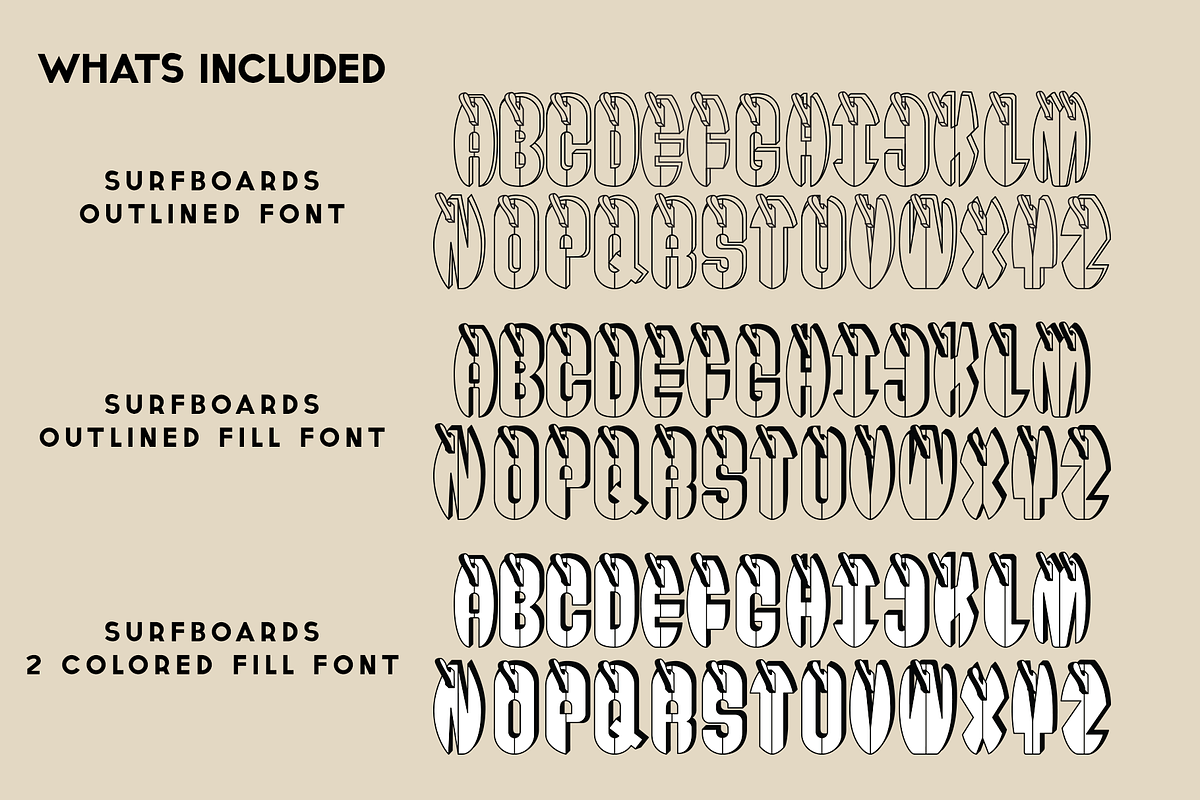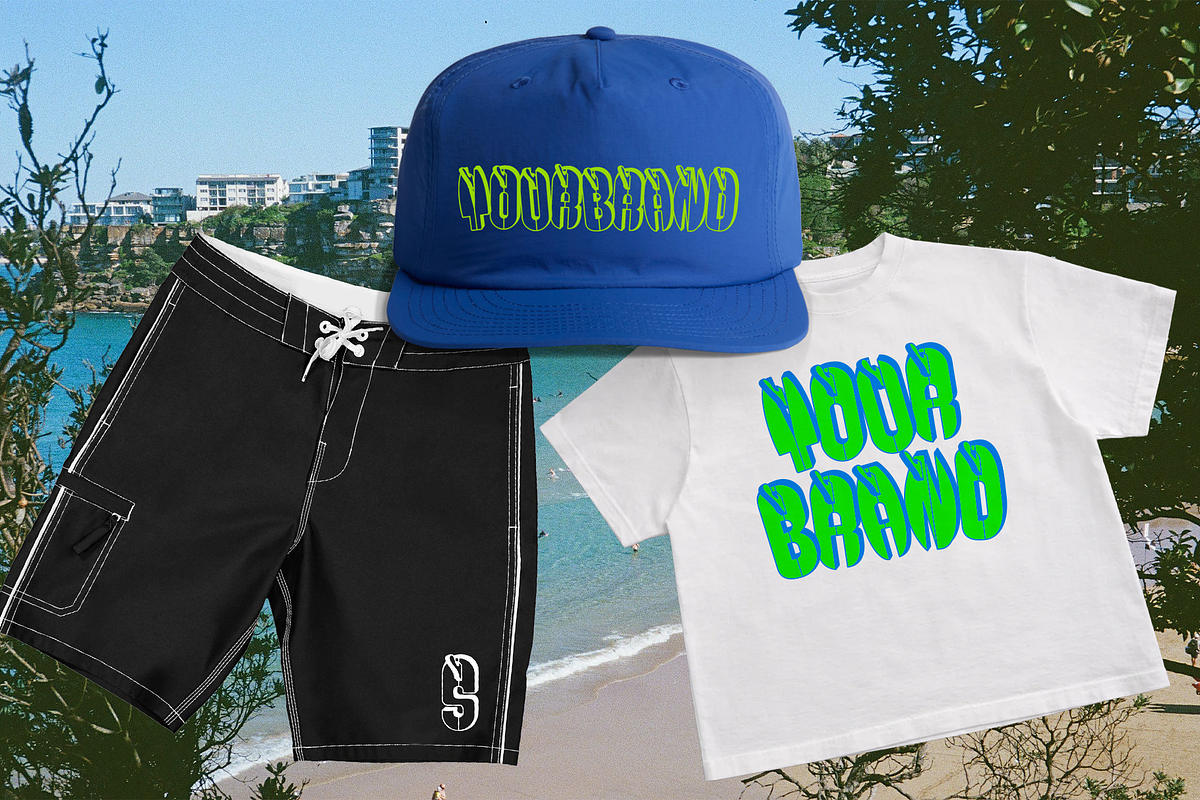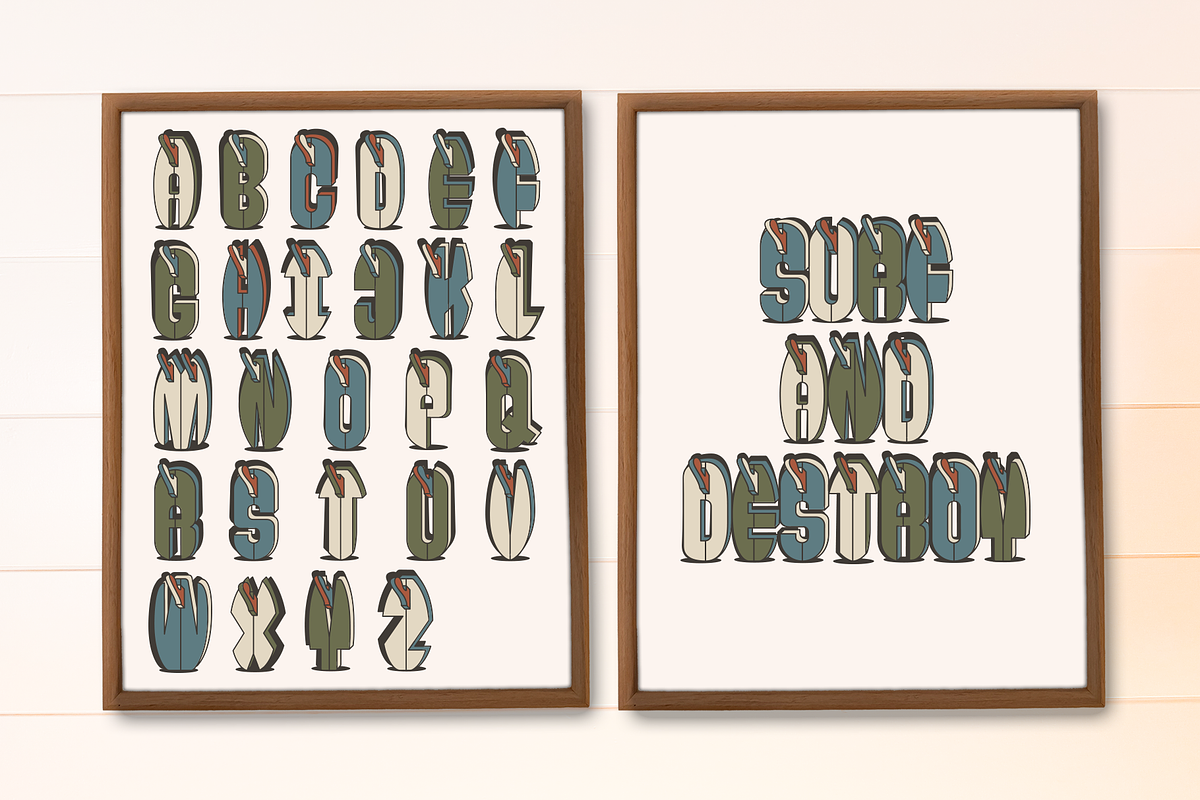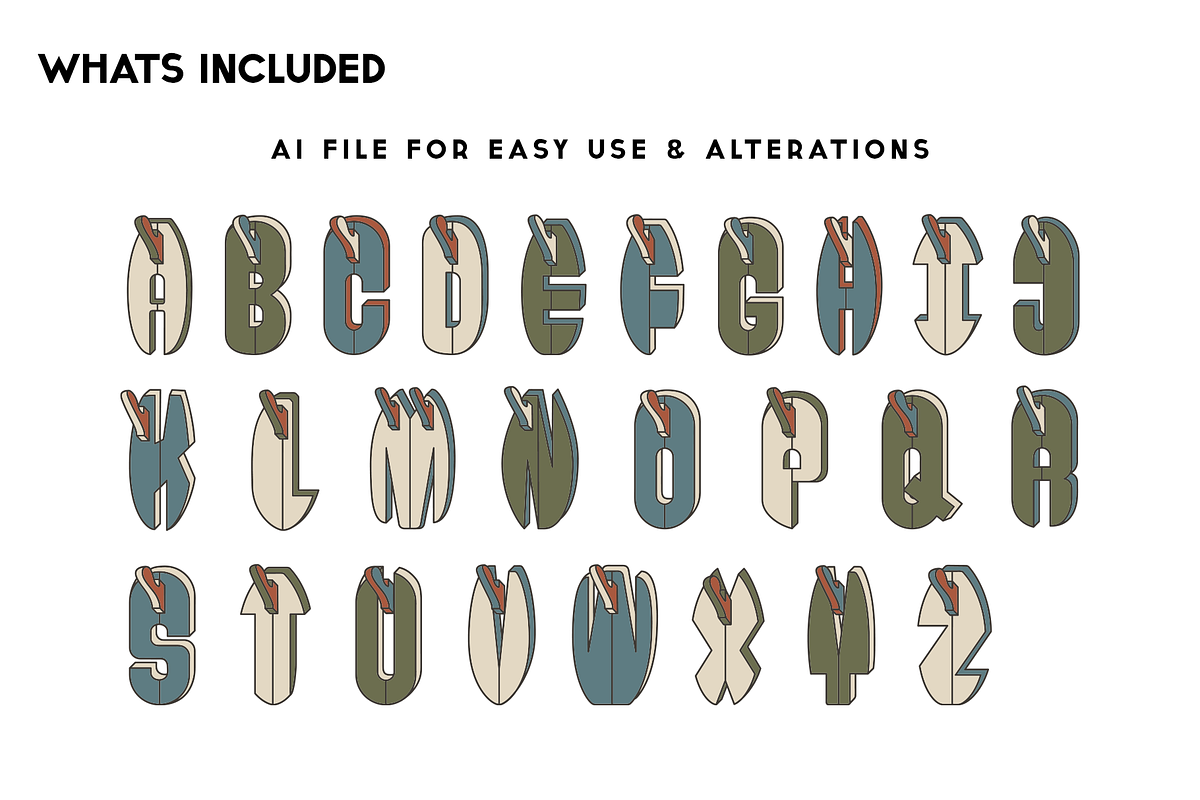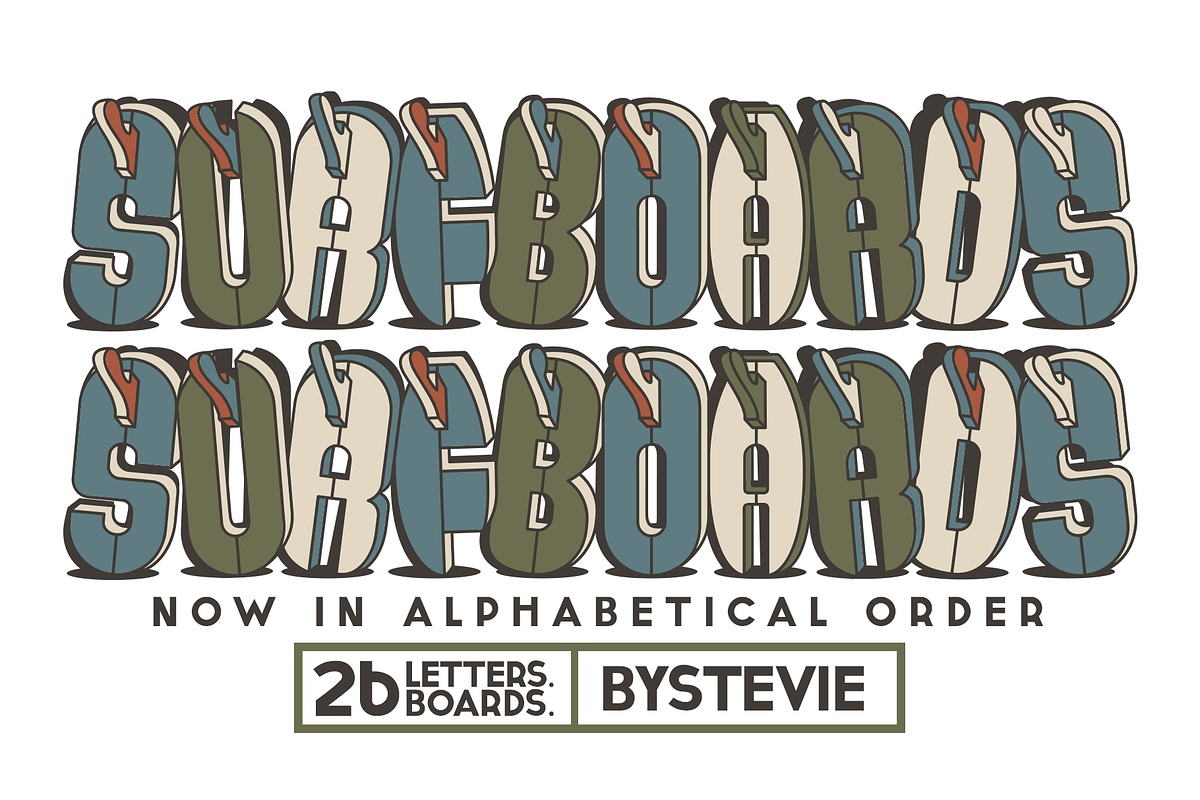
Surfboards Hand-Drawn Type
Surfboards...that's it thats the font.
Every letter is built around the general shape of a surfboard, drawn in a distinctive style I’ve developed and the slightly weird idea of turning an entire alphabet into surfboards.
Inspired by the shape of surf craft this typeface feels more like a collection of illustrated boards than a traditional font. It's perfect for surf brands, job application cover letters, apparel, posters, editorial design, packaging, stickers, social content, logos, merch, and anything you wanted to add surfboards in the general shape of letters to!
Please note: This is a display typeface designed for headlines, logos, and larger-scale applications. Because of its illustrated nature, it works best when given room to make a statement. Standalone letters work great for merchandise!